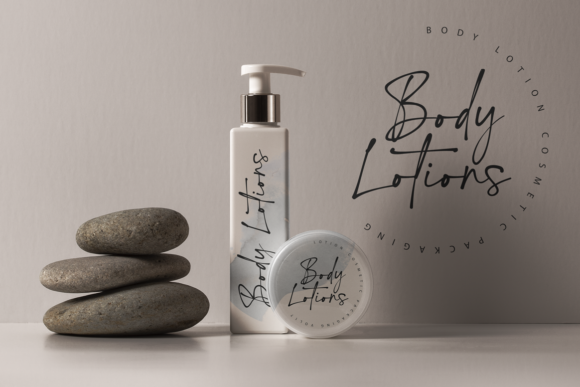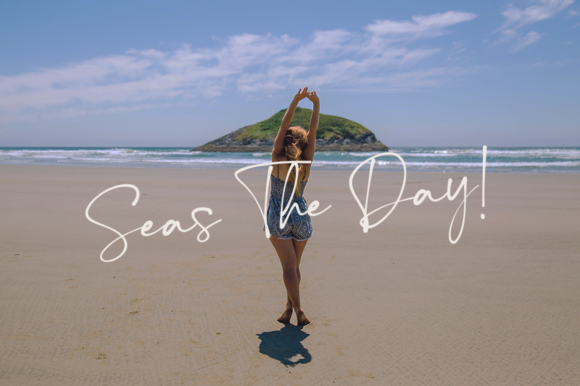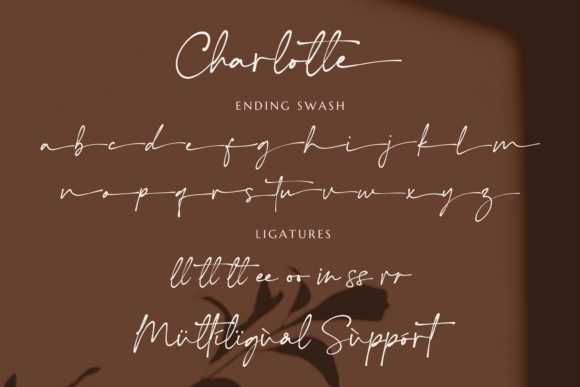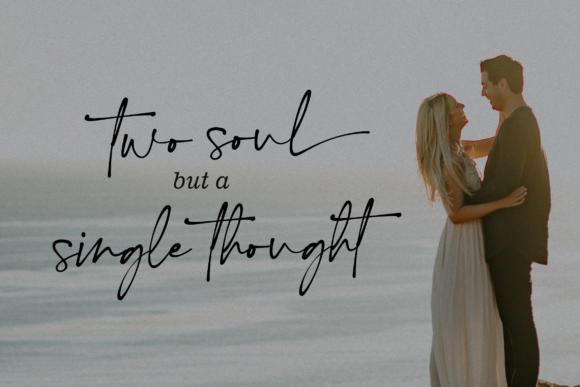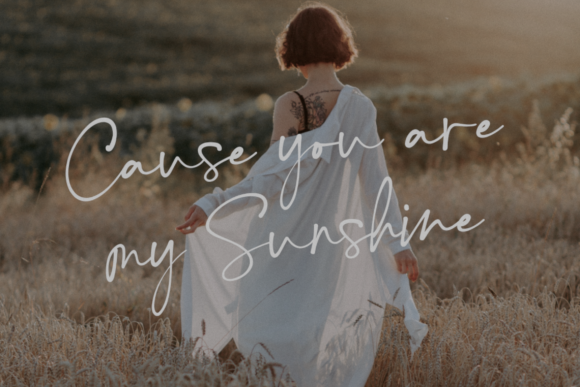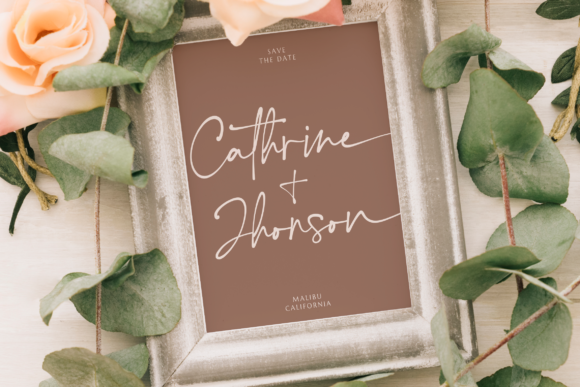
Introducing Charlotte Font: Elevate Your Designs with Elegant Calligraphy
Are you a designer or crafter looking to add a touch of sophistication and elegance to your projects? Look no further than the Charlotte font, a modern and flowing calligraphy font that is sure to impress. With its beautiful, handwritten aesthetic, Charlotte is perfect for a variety of design applications, from wedding invitations and thank you cards to quotes, greeting cards, logos, and business cards.
What Makes Charlotte Font So Special?
Charlotte font is a stunning example of modern calligraphy, with its flowing lines and elegant swashes. This font is designed to give your designs a personal, handwritten touch that is sure to set them apart from the crowd. Whether you’re creating wedding stationery, designing a logo for a business, or crafting a quote for social media, Charlotte font is the perfect choice.
One of the best things about Charlotte font is its versatility. This font can be used for a wide range of design applications, including:
- Wedding invitations and stationery: Add a touch of romance and elegance to your wedding designs with Charlotte font.
- Thank you cards and greeting cards: Make your cards stand out with the beautiful, handwritten aesthetic of Charlotte font.
- Quotes and social media graphics: Add a personal touch to your quotes and social media graphics with Charlotte font.
- Logos and business cards: Give your business a professional, elegant look with Charlotte font.
Another great feature of Charlotte font is that it is PUA (Private Use Area) encoded. This means that you can access all of the glyphs and swashes with ease, giving you even more flexibility and creative control over your designs. With PUA encoding, you can:
- Access a wide range of glyphs and swashes to customize your designs.
- Easily edit and manipulate the font to suit your needs.
- Create unique and complex designs with ease.
Why Choose Charlotte Font?
So why should you choose Charlotte font for your designs? Here are just a few reasons:
- Unique and elegant aesthetic: Charlotte font has a beautiful, handwritten aesthetic that is sure to impress.
- Versatile: This font can be used for a wide range of design applications.
- Easy to use: With PUA encoding, you can access all of the glyphs and swashes with ease.
- High-quality: Charlotte font is a high-quality font that is designed to give your designs a professional look.
Tips for Using Charlotte Font
Here are a few tips for using Charlotte font in your designs:
- Experiment with different sizes and colors to find the perfect look for your design.
- Use the glyphs and swashes to add a personal touch to your designs.
- Pair Charlotte font with other fonts to create a unique and interesting look.
In conclusion, Charlotte font is a beautiful and versatile calligraphy font that is perfect for designers and crafters looking to add a touch of elegance and sophistication to their projects. With its flowing lines, elegant swashes, and PUA encoding, Charlotte font is sure to become a go-to font in your design arsenal. So why wait? Download Charlotte font today and start creating stunning designs that are sure to impress!